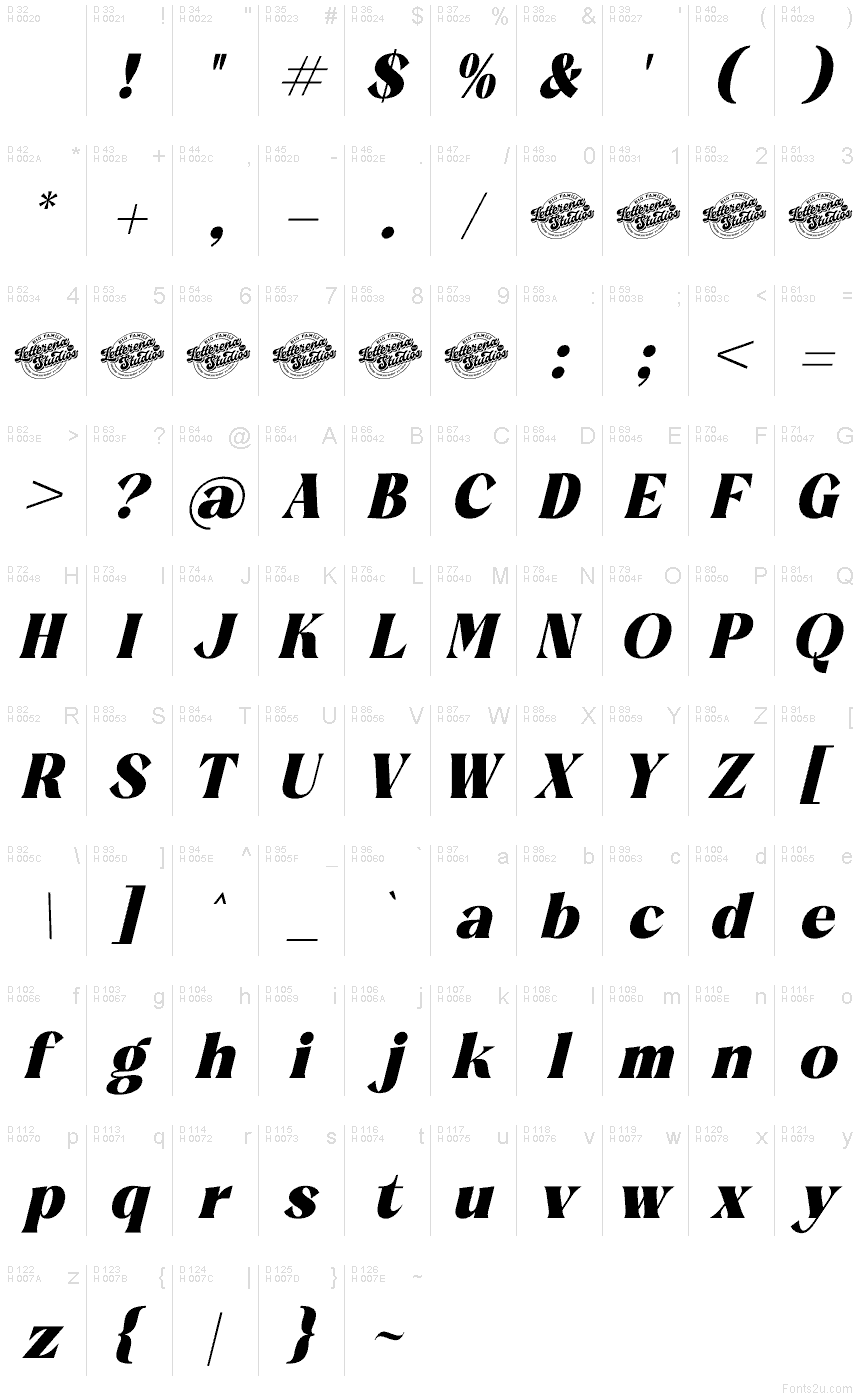
Beatnik Garden DEMO VERSION Italic
Beatnik Garden Italic font by Letterena Studios is a free decorative display serif font. Built on the Beatnik Garden family’s lush curves, this italic leans into a jazzy swing—thick strokes swell and taper like brushy petals, while the forward slant adds a breezy, improvisational rhythm. It feels tactile and inky, delivering a confident headline voice without getting stiff or fussy.
Using Beatnik Garden Italic, you get titles that feel stylish and alive—great for boutique branding, album covers, poster quotes, book jackets, event flyers, and café menus. The generous forms hold up at large sizes, and the lively cadence draws the eye in scroll-stopping social graphics. Pair this free font with a crisp grotesque sans for body copy, or give it a touch of extra letterspacing when blown up for signage.